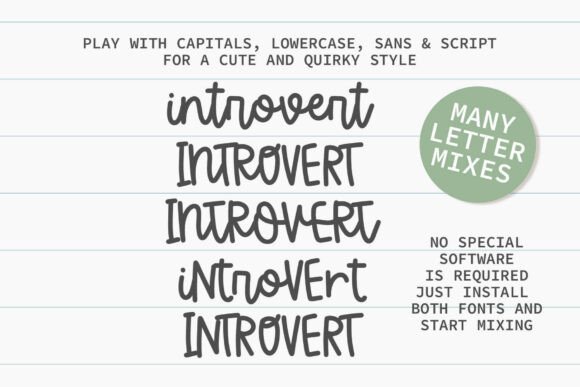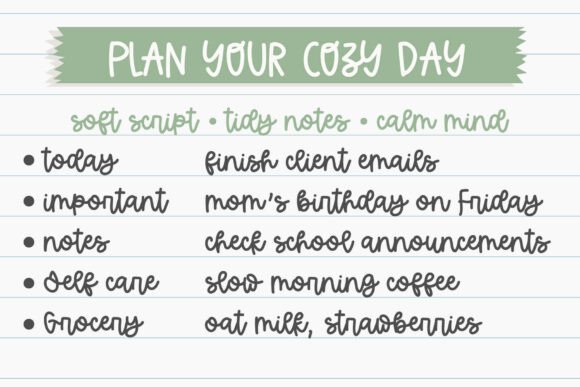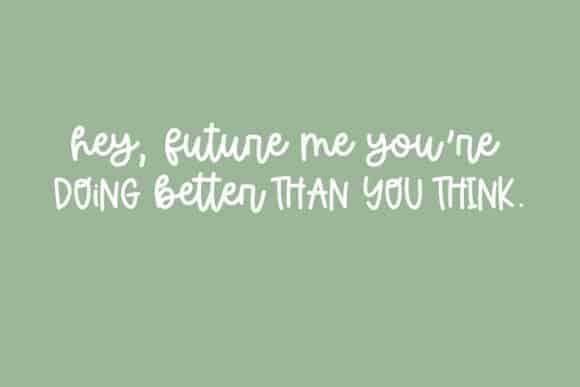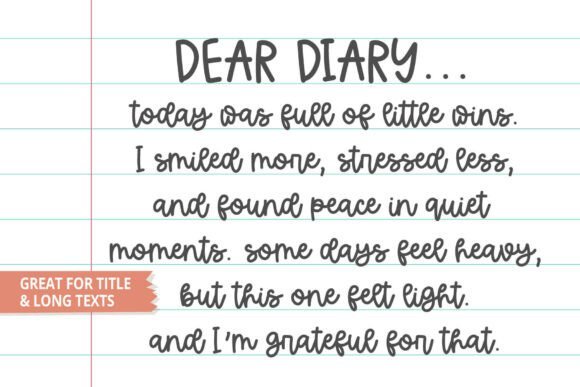
Introvert is a cozy font duo where the Script style is your main handwriting and the matching Sans works as a full alternate set. You’ll get two separate font files – Introvert Script and Introvert Sans – so you can use every alternate even without OpenType features, just by switching fonts.